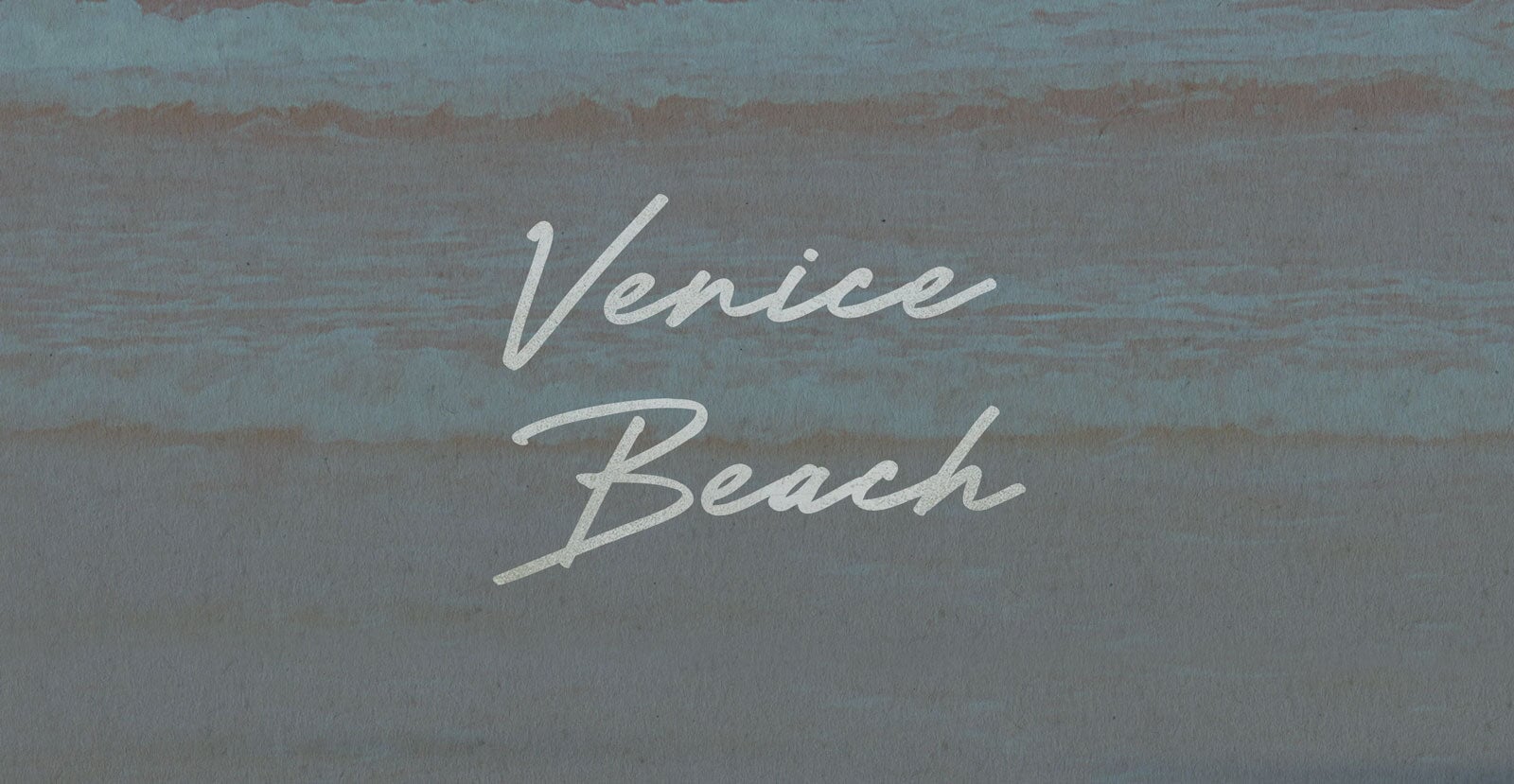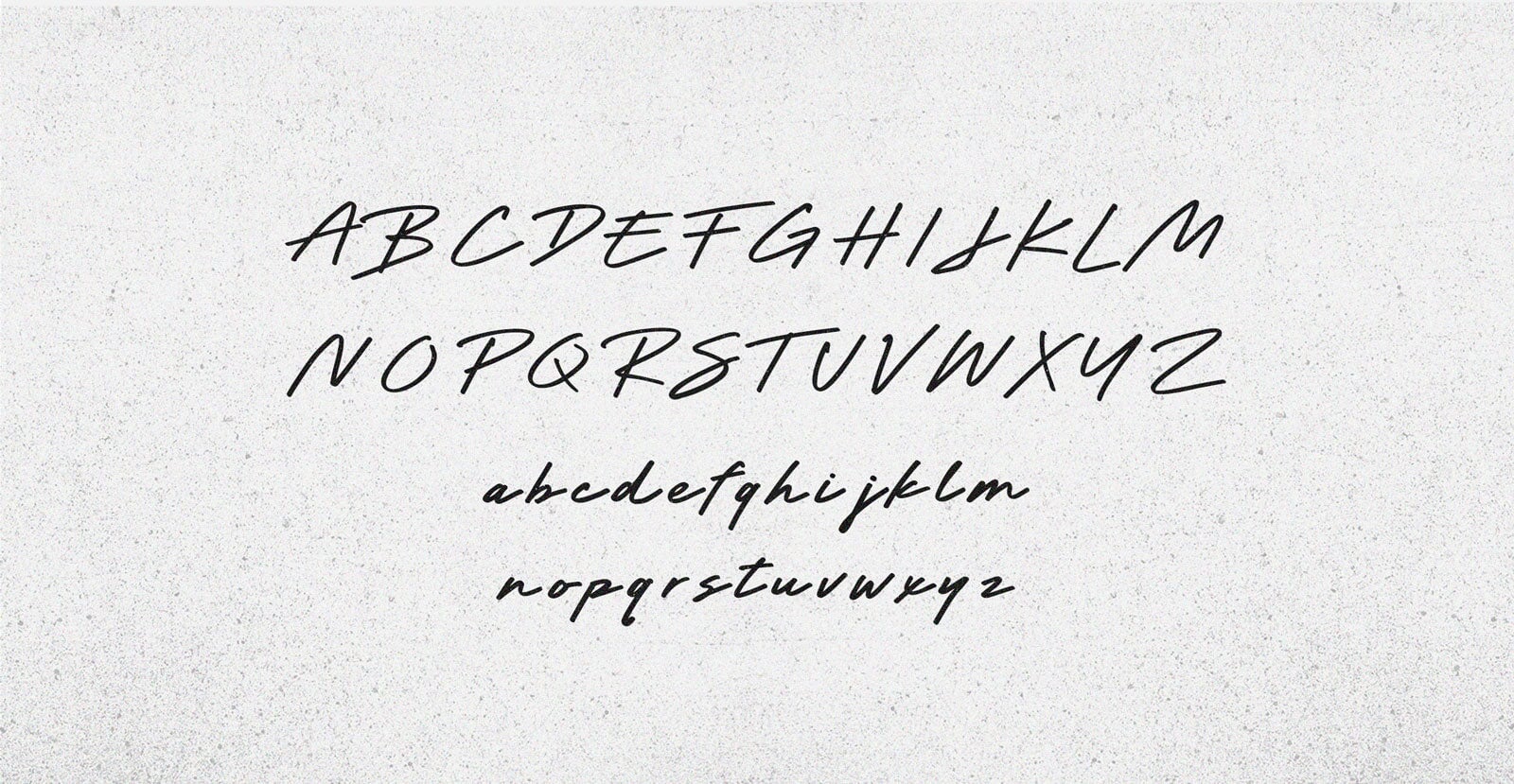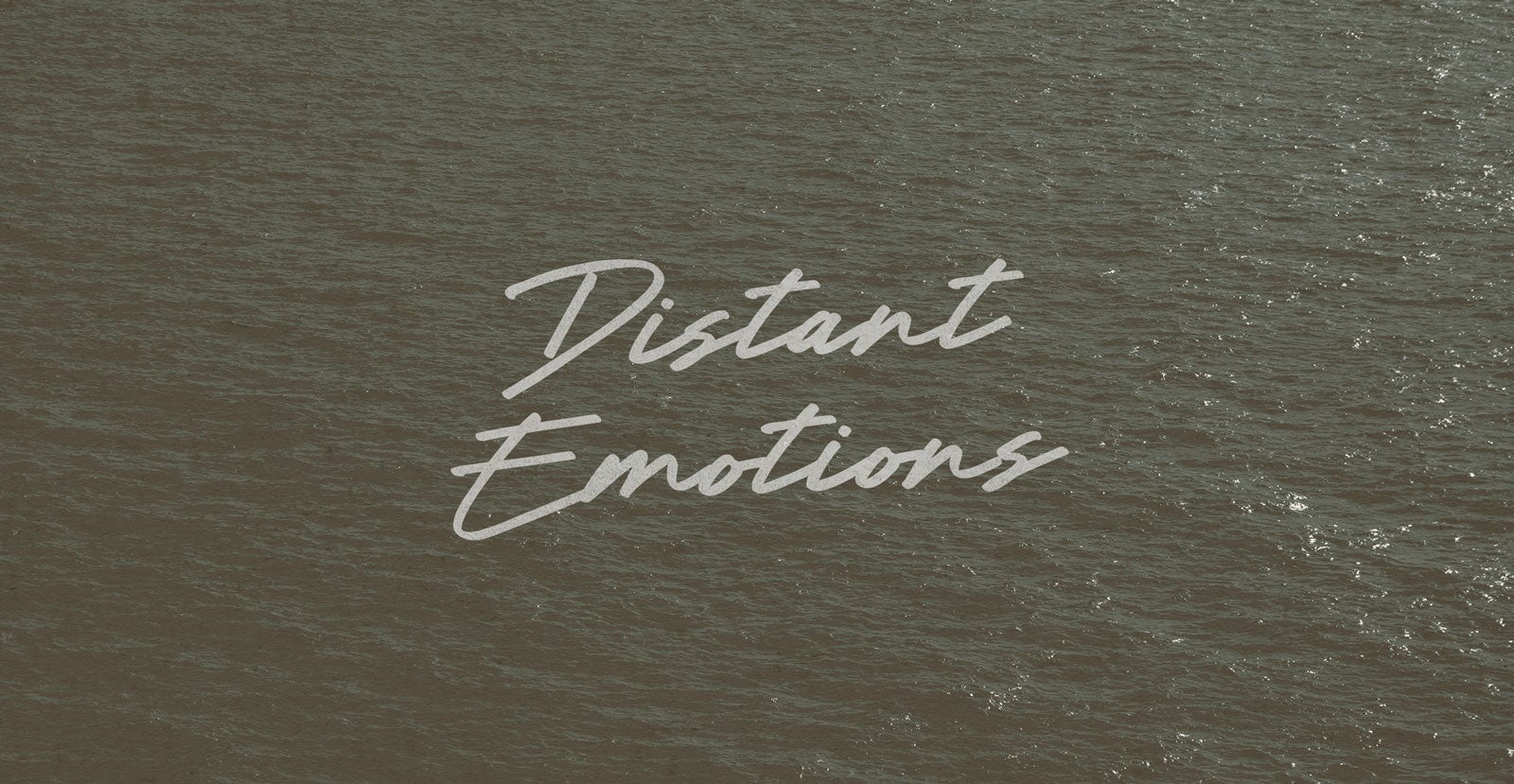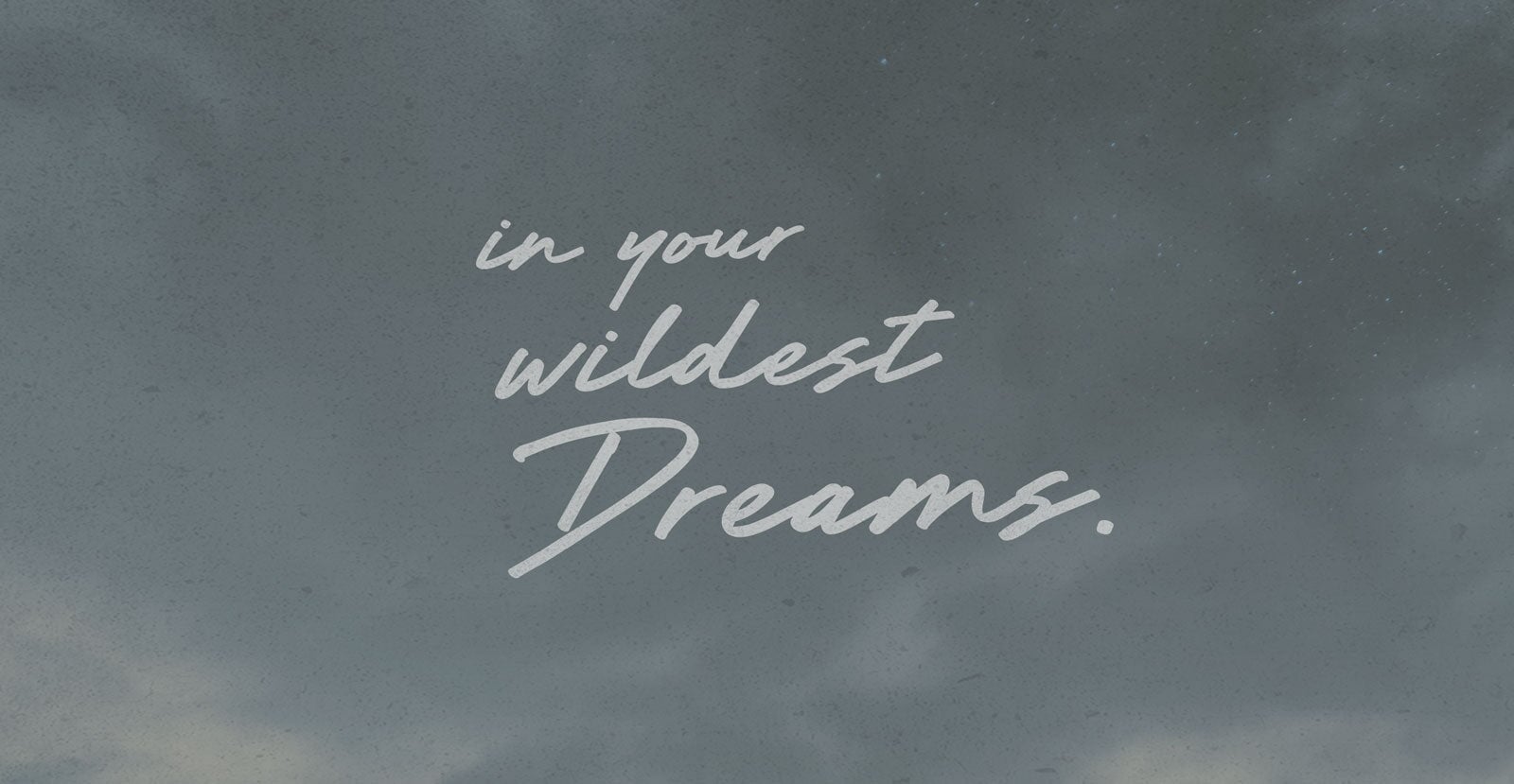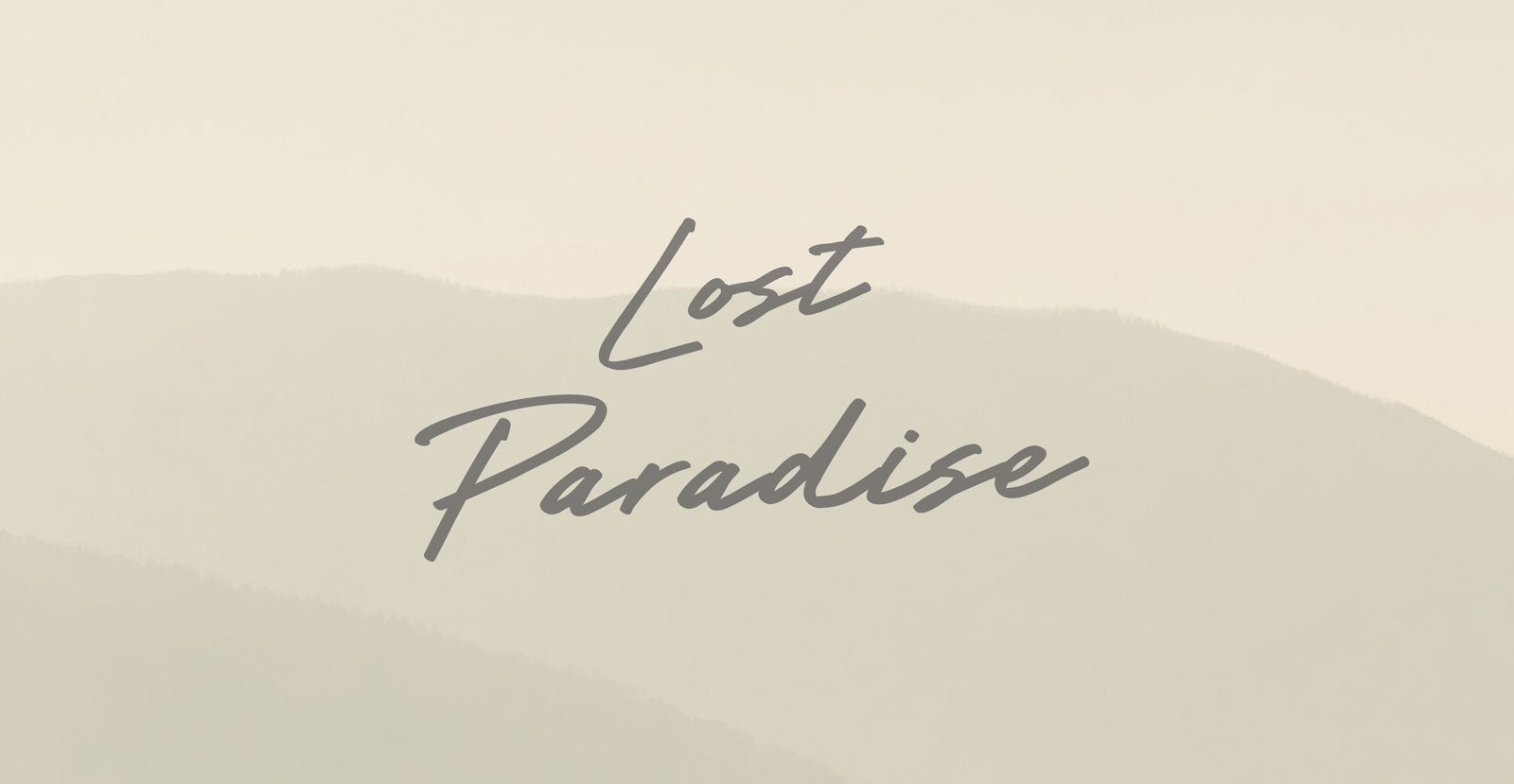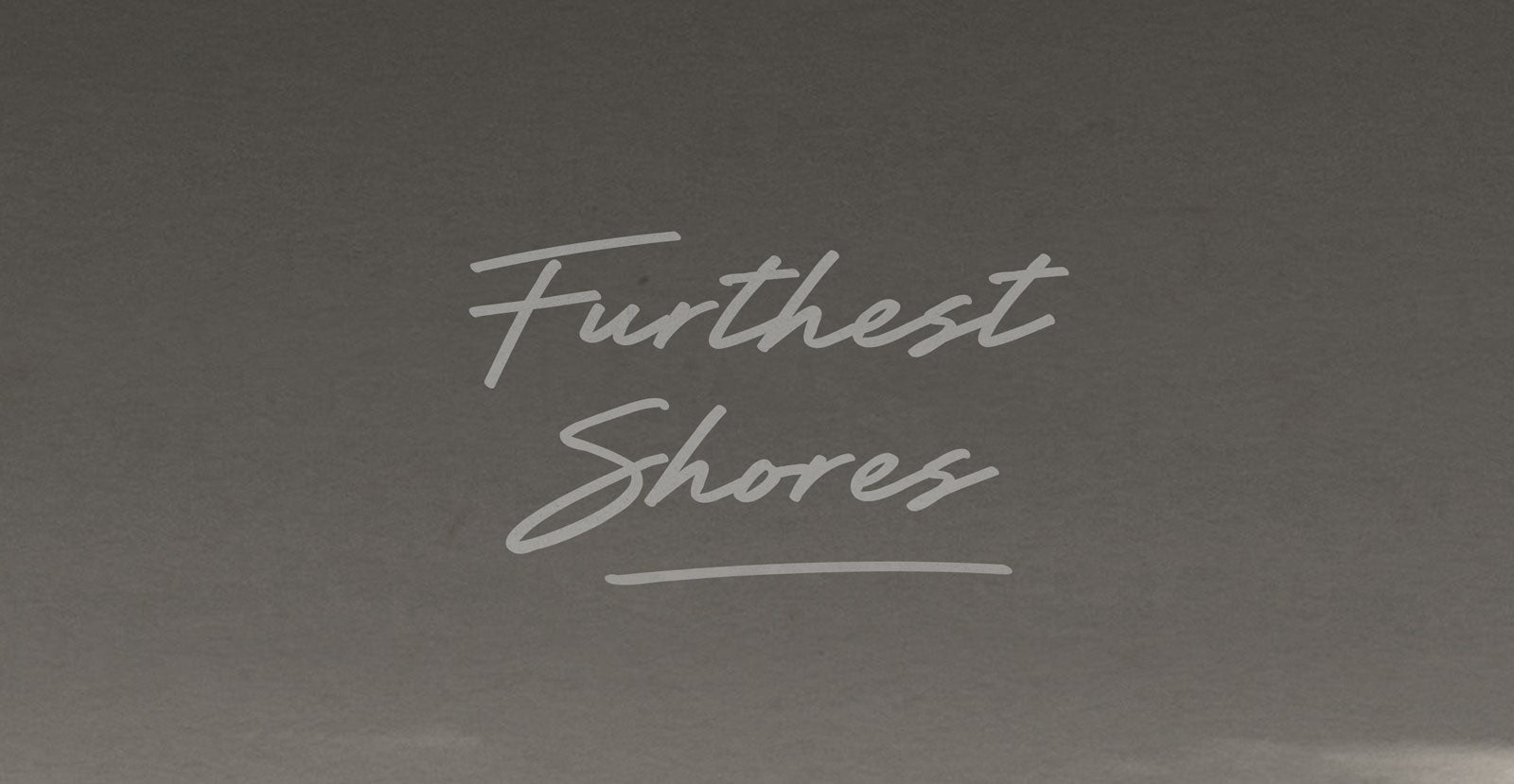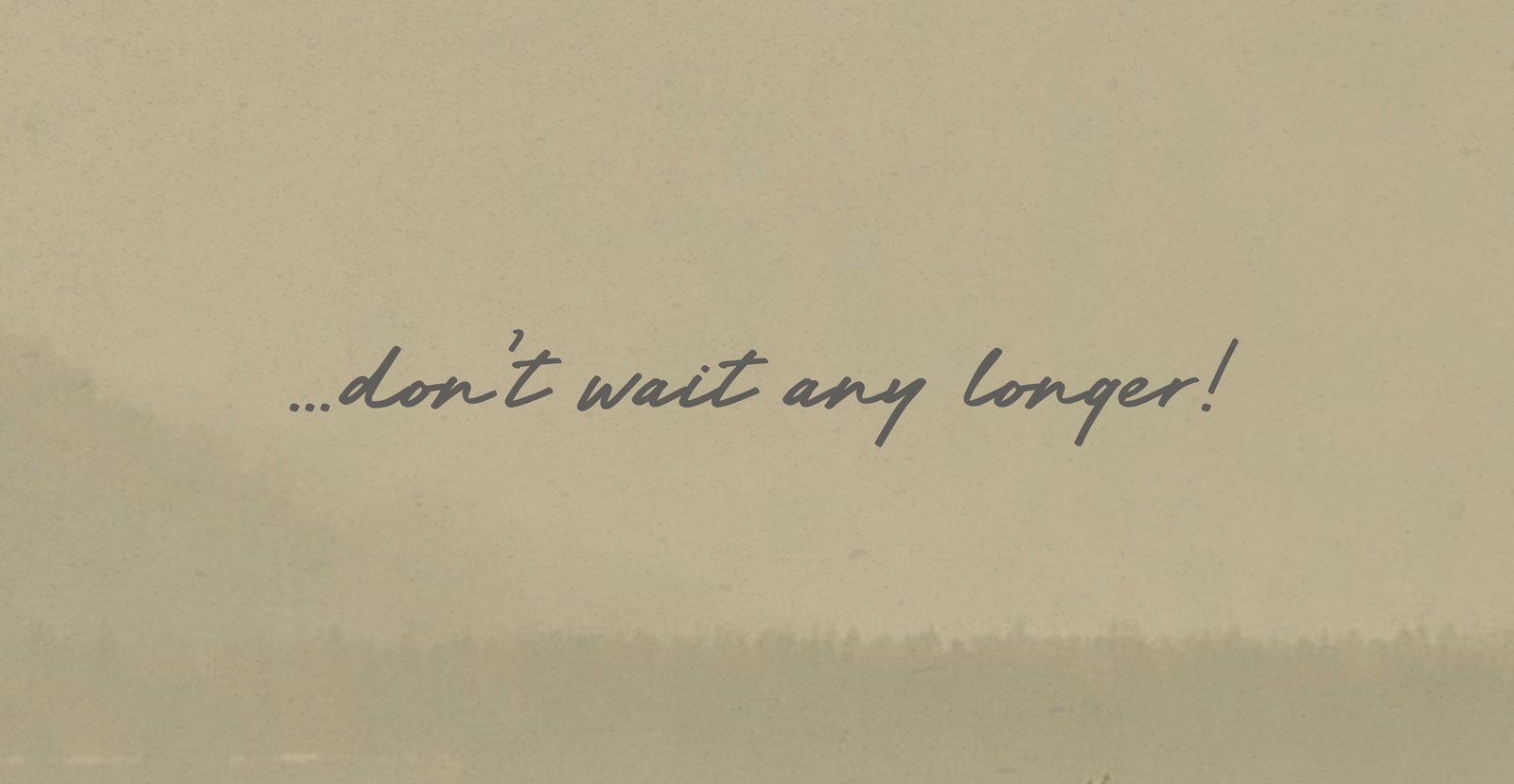
Venice Beach
Venice Beach moves with sun-faded ease—loose, vibrant, and a little unpredictable. It’s the rhythm of worn skate decks, salty air, and creative sprawl. Effortlessly cool, with just the right amount of chaos.